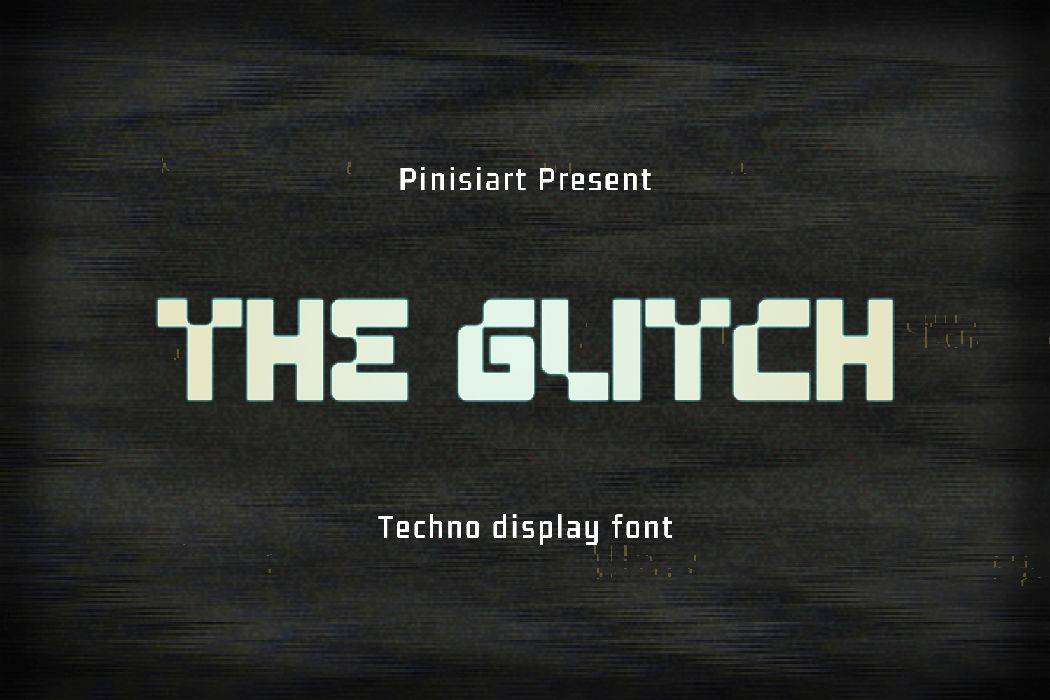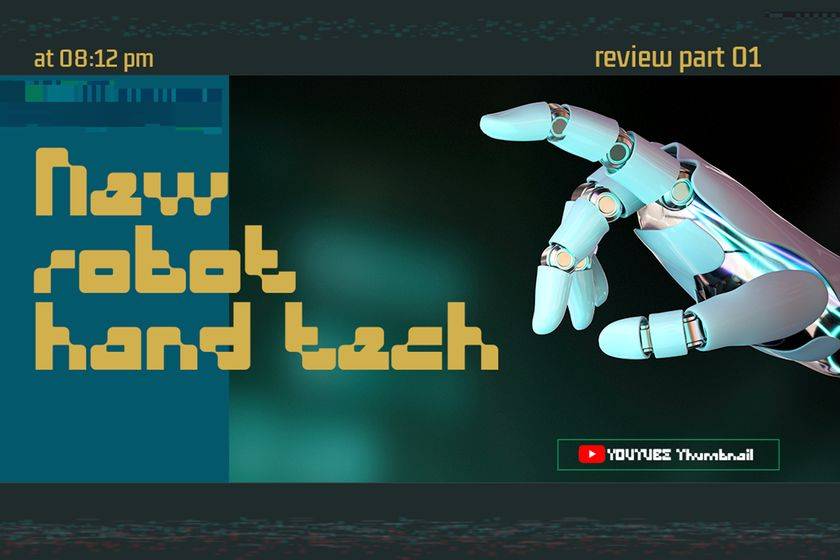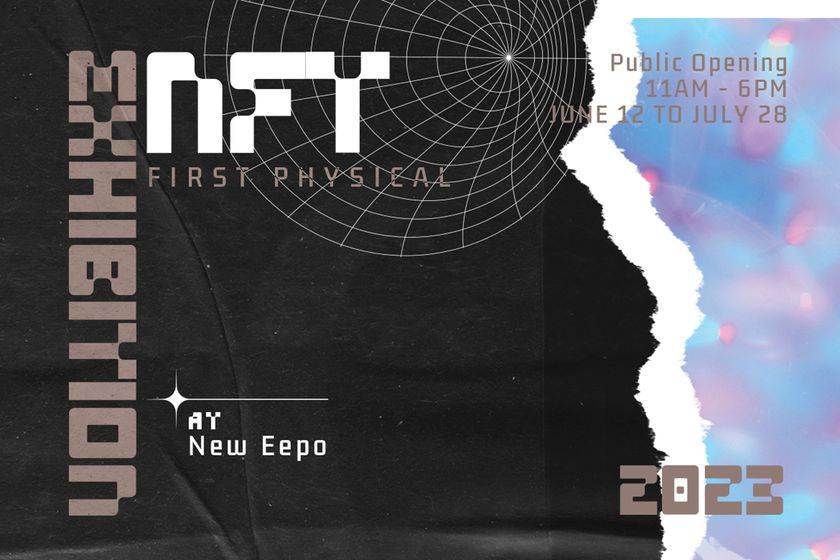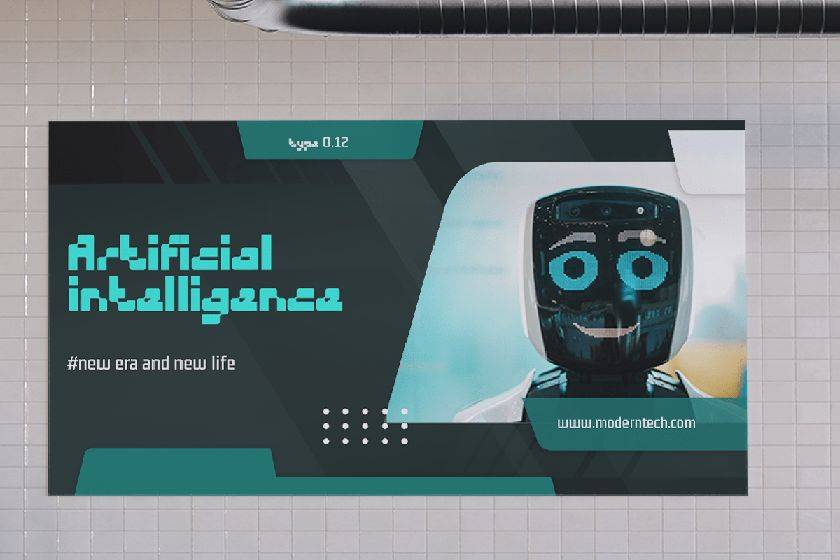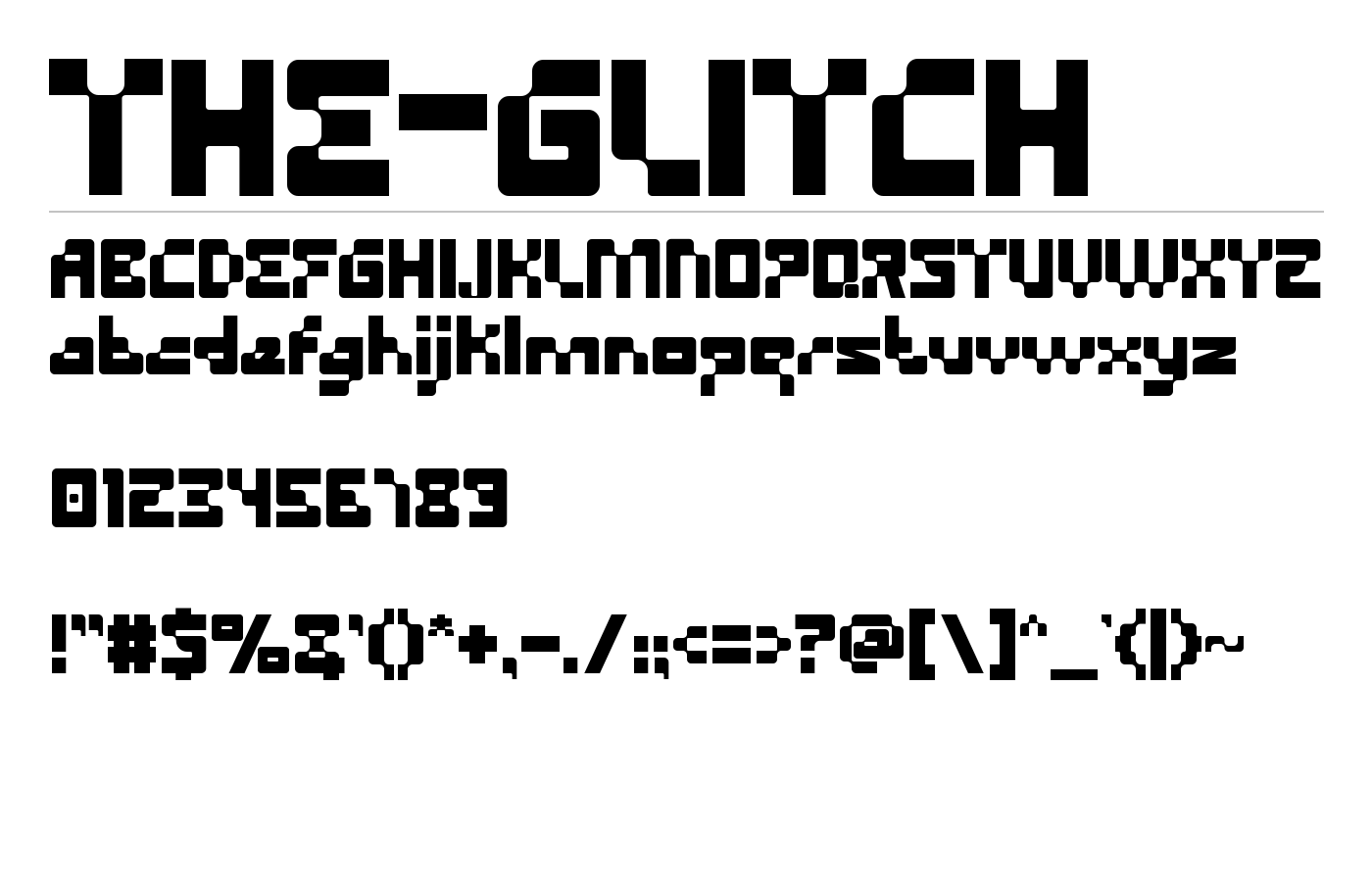
The Glitch Font is a bold, modern sans serif with a distinctive digital, fragmented style that mimics screen glitches or pixel distortions. Its heavy weight, squared shapes, and irregular cutouts give it a techy, futuristic vibe perfect for creative projects needing a striking, edgy look. This font works best for eye-catching headlines, logos, and posters where a unique, futuristic statement is desired.
The Glitch Font
About The Glitch Font